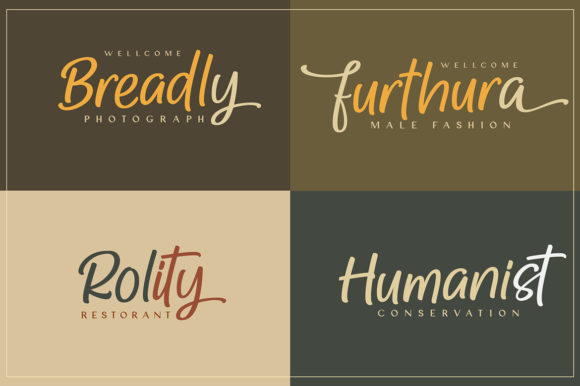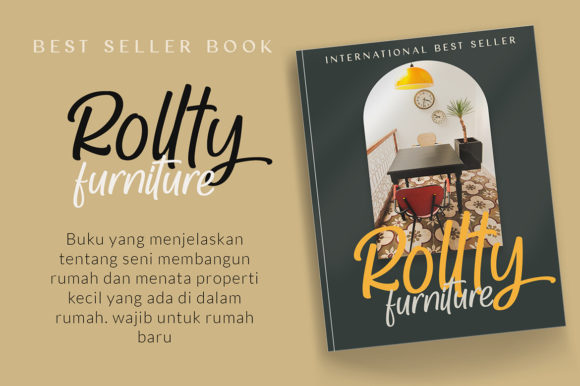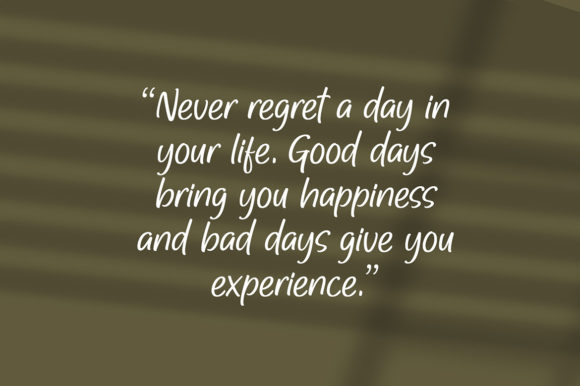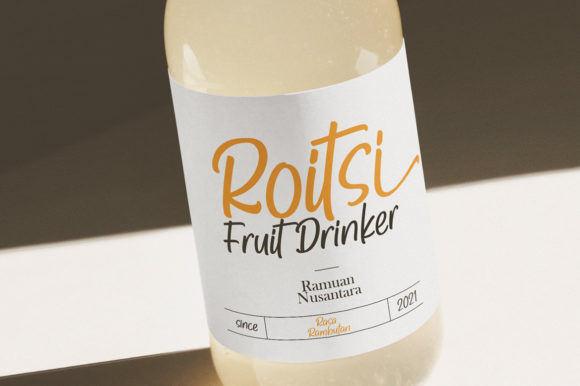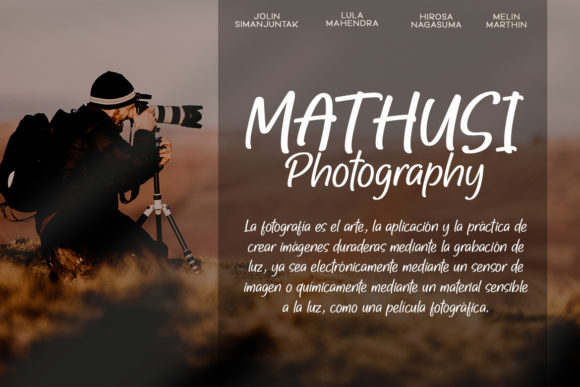
About Grillith Font
Presenting Grillith, a splendid handwritten font. This font is created with a unique combination of features; each character looks real and can be used for all your project needs. This font can be used anytime in any project.